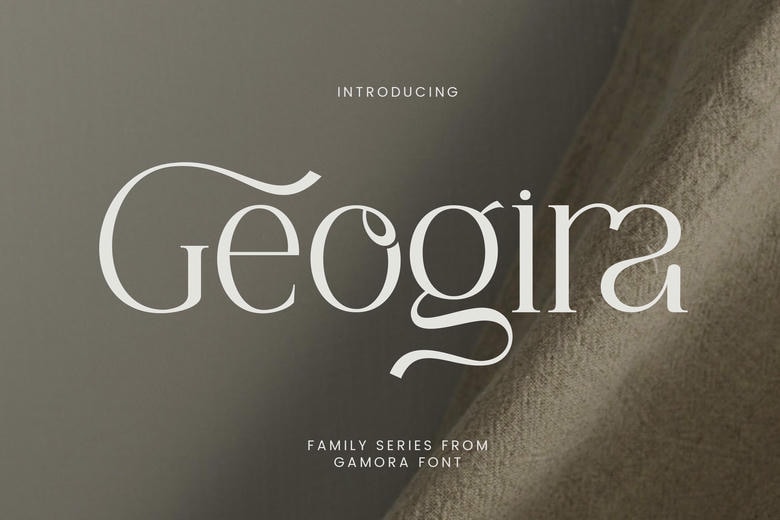
Geogira Font
Geogira Family Font. Find your way into the variety of typography with Geogira, a versatile typeface, that goes beyond the usual boundaries. It is a family of fonts that is a cacophony of types and provides Thin, Extra Light, Light, Regular, Medium, Semi-Bold and Bold options, which enables you to create designs that are more precise and personality-driven.
Geogira Serif Font Family